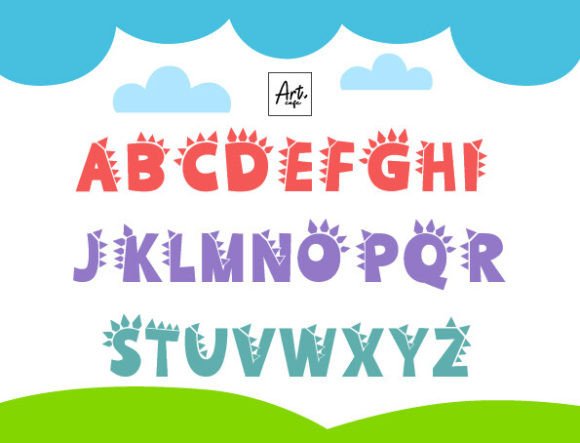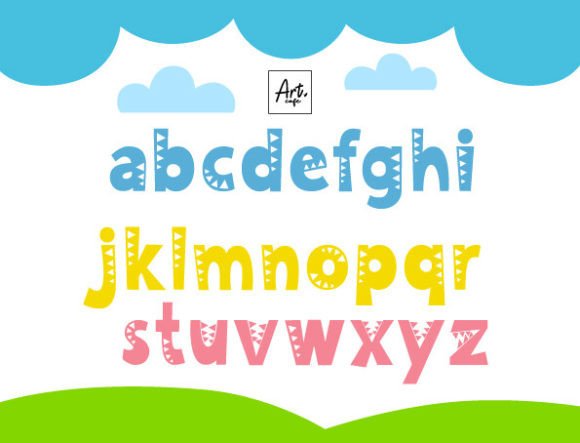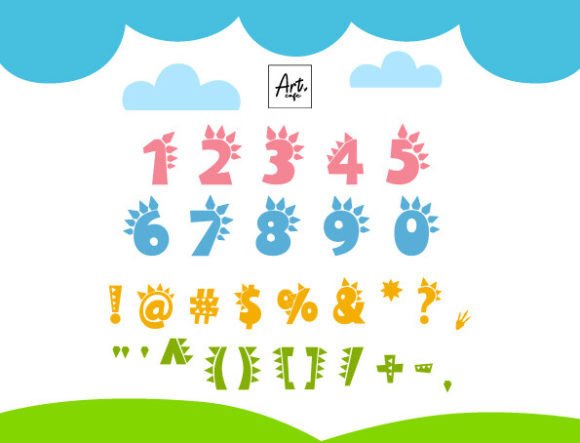
Dinosaur Alphabet Font
About the Dinosaur Alphabet Font
Explore the possibilities with Dinosaur Alphabet Font, a font that offers both beauty and functionality. Unleash the spirit of adventure and imagination with the Dinosaur Alphabet font. Boasting bold and cheerful characters, this font is a delightful choice for children’s poster headlines. It marries playfulness and audacious elements, making each letter a unique spectacle. The Dinosaur Alphabet font conjures images of epic tales and Jurassic journeys, ensuring your designs will effortlessly captivate the youthful and young-at-heart audience!
This font’s playful, bold nature makes it ideal for children’s book covers, playful branding for toys or children’s entertainment, and eye-catching headlines on posters or packaging. However, its highly stylized characters are not suitable for body text or extended reading; legibility suffers at smaller sizes. Avoid using it in UI contexts or for lengthy paragraphs.
Pairing Dinosaur Alphabet with a clean sans-serif like Open Sans for body copy creates a strong contrast, allowing the headline to pop while maintaining readability. Alternatively, a classic serif like Garamond could add a touch of sophistication, balancing the font’s boldness with refined elegance.
The Dinosaur Alphabet font exudes a cheerful, adventurous personality. Its unique forms are best utilized for projects targeting a young audience or brands that emphasize fun and imagination. Consider using it sparingly as an accent to avoid overwhelming the design.
Dinosaur Alphabet Font Usage Examples
Dinosaur Alphabet Font Example